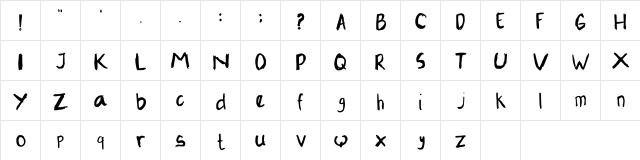
Petrus Scratch Regular
Design Context for Petrus Scratch Typeface
Petrus Scratch is a composed and adaptable typeface that performs quietly and consistently across a wide range of design contexts.